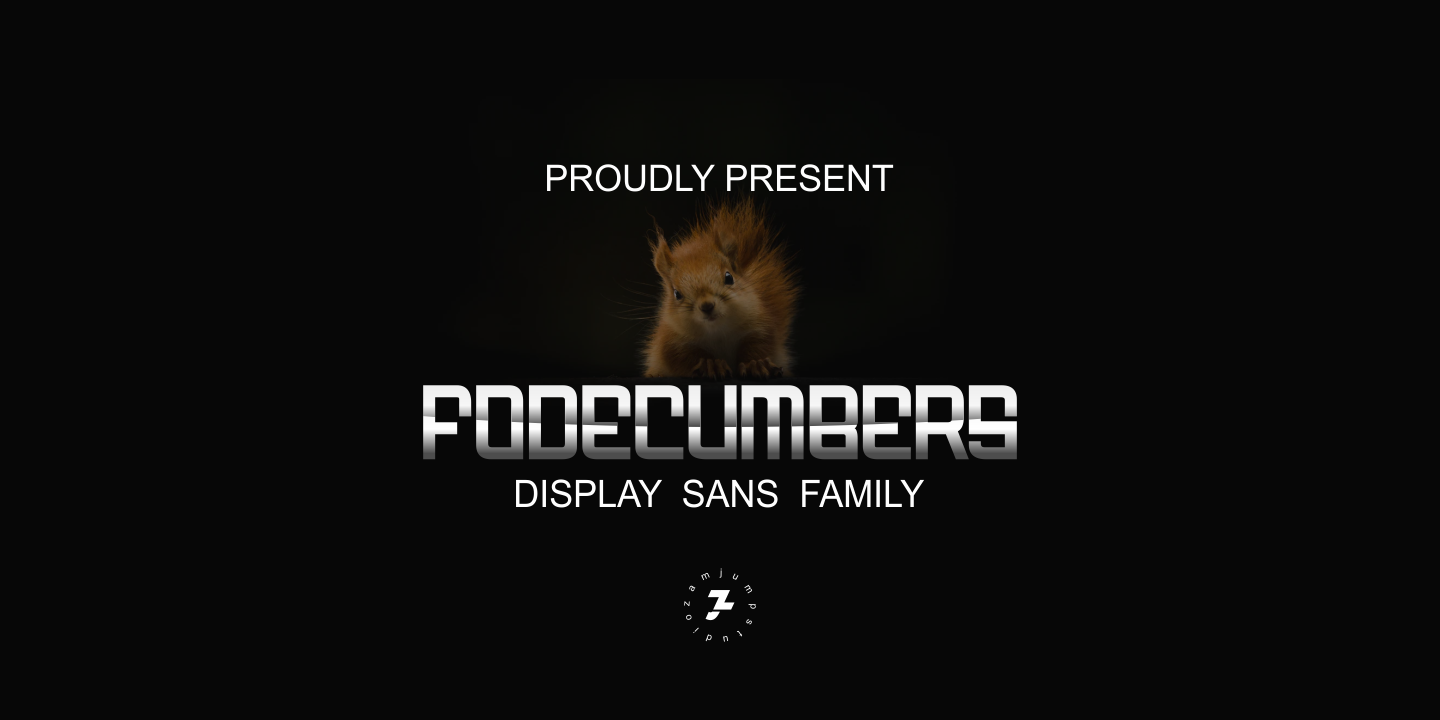
Fodecumbers Display Font is a bold and strikingly unique typeface, perfectly suited for projects that demand to capture attention and convey a distinctive, memorable personality. Imagine it dominating the headlines of a quirky magazine cover, adding an energetic and unconventional flair to a creative brand's marketing materials, or making an unmissable statement on posters for unique cultural events and festivals. It's also an excellent choice for crafting striking logos that demand notice, designing impactful social media graphics that pop with character, or injecting a sense of vibrant originality into digital content and presentations. If you're looking to convey creativity, boldness, and an undeniable sense of artistic individuality, Fodecumbers Display Font is an outstanding selection.
What makes Fodecumbers Display Font so exciting? It’s its unparalleled ability to blend a robust, eye-catching construction with whimsical or unexpected letterforms, creating an immediate visual impact that resonates with creative sensibilities. This font is specifically designed for display purposes, meaning its unique character shines in larger sizes, commanding attention while maintaining clarity. Despite its often playful or unconventional appearance, Fodecumbers Display Font is crafted to ensure readability for its intended use, delivering your message with both precision and significant flair. Designers will appreciate its versatility in creating designs that are both visually assertive and deeply memorable, making it a go-to choice for projects that need to break through the noise and leave a lasting impression of vibrant originality.
The Fodecumbers Display Font family is typically designed to maximize its formidable and distinctive aesthetic. While it might primarily feature a singular, intensely bold or extra-bold weight that perfectly embodies its unique style, you could find variations that enhance its utility, such as slightly condensed versions for impactful headlines in limited spaces, or stylistic alternatives that offer more creative typographic possibilities to deepen its distinctive appeal. These variations ensure that Fodecumbers Display Font maintains its cohesive and high-impact visual identity across different design applications, from monumental titles to powerful short statements. Discover the formidable power of Fodecumbers Display Font Free Download and infuse your designs with an unforgettable sense of creative dynamism.